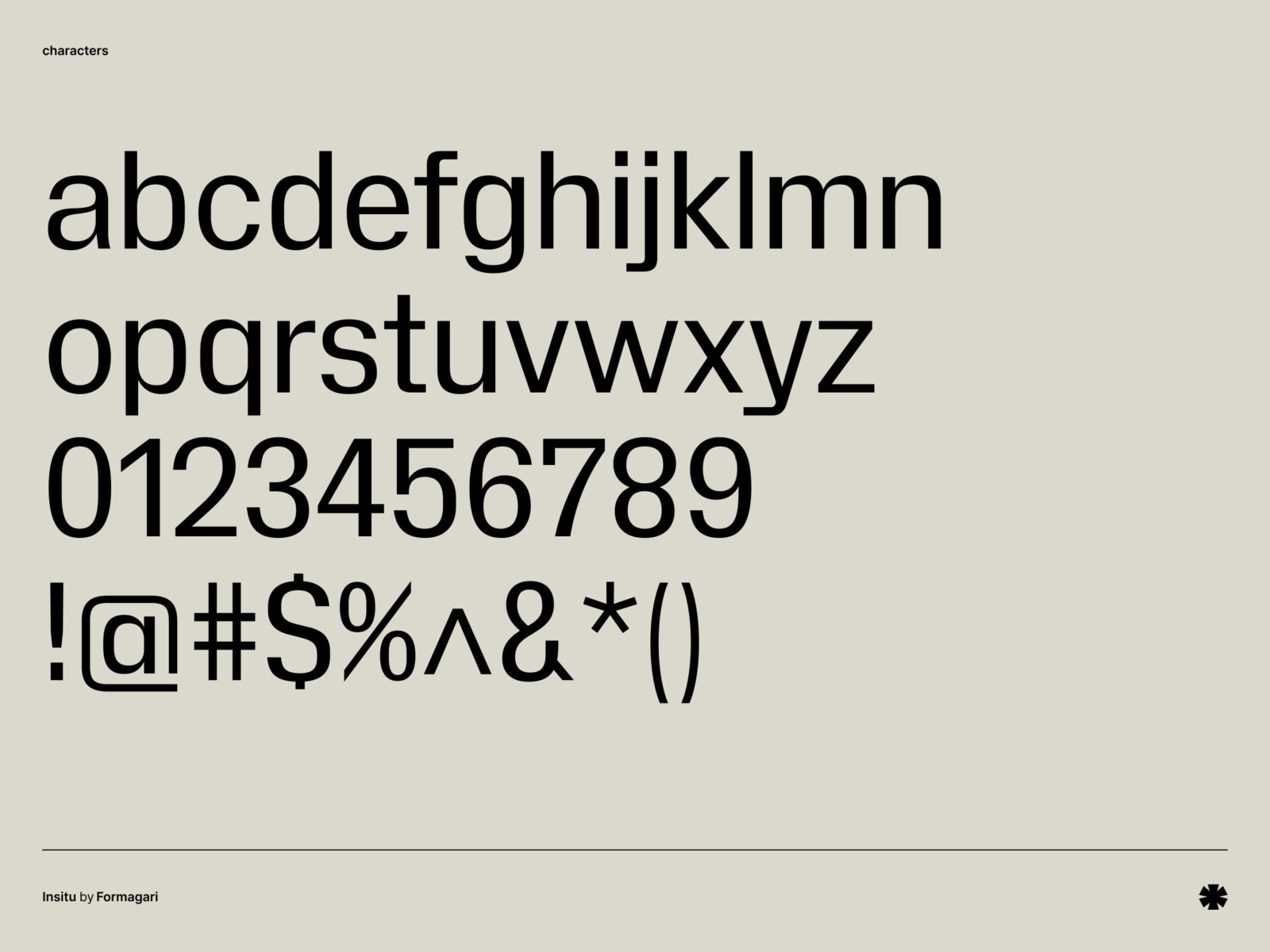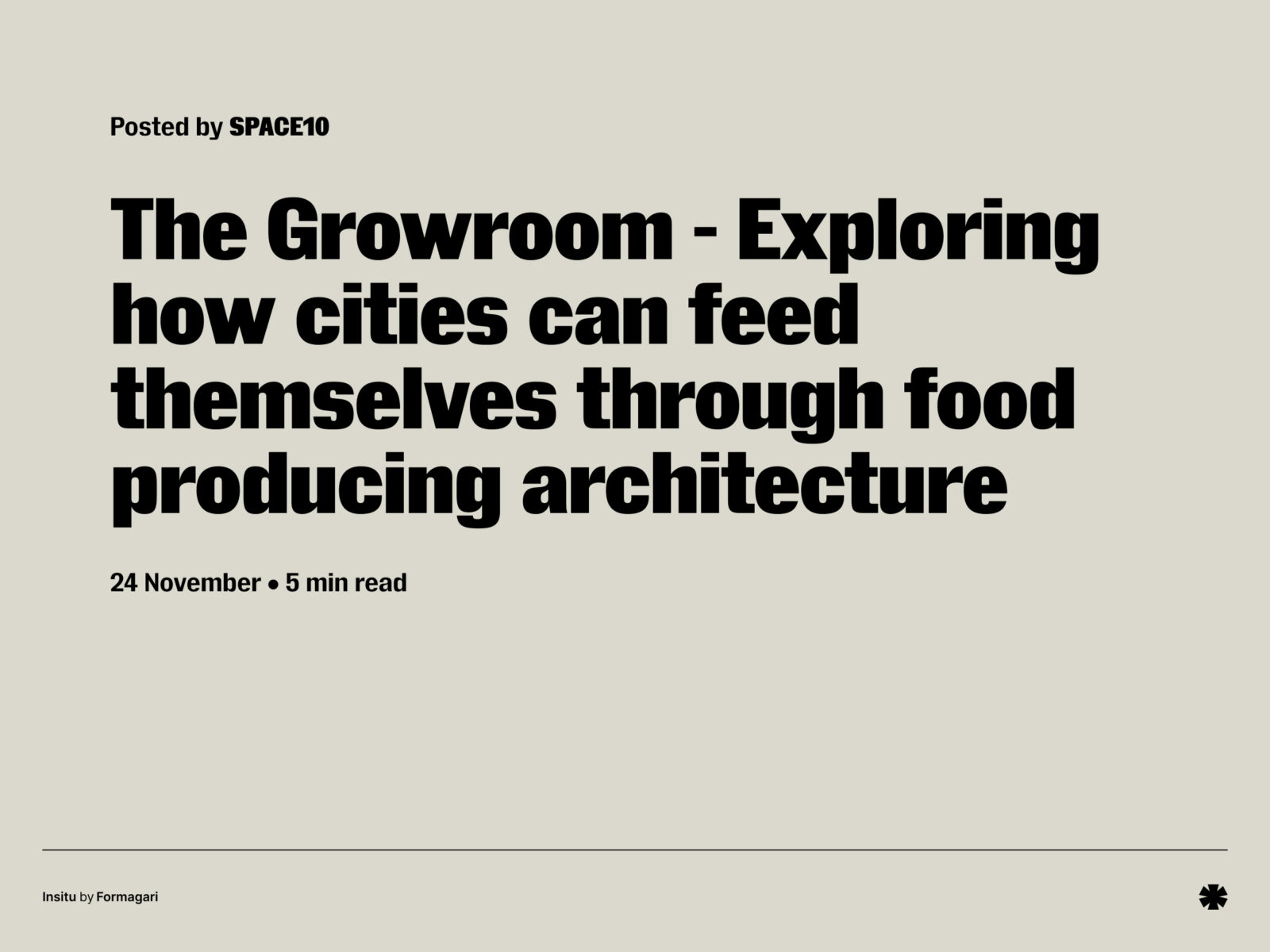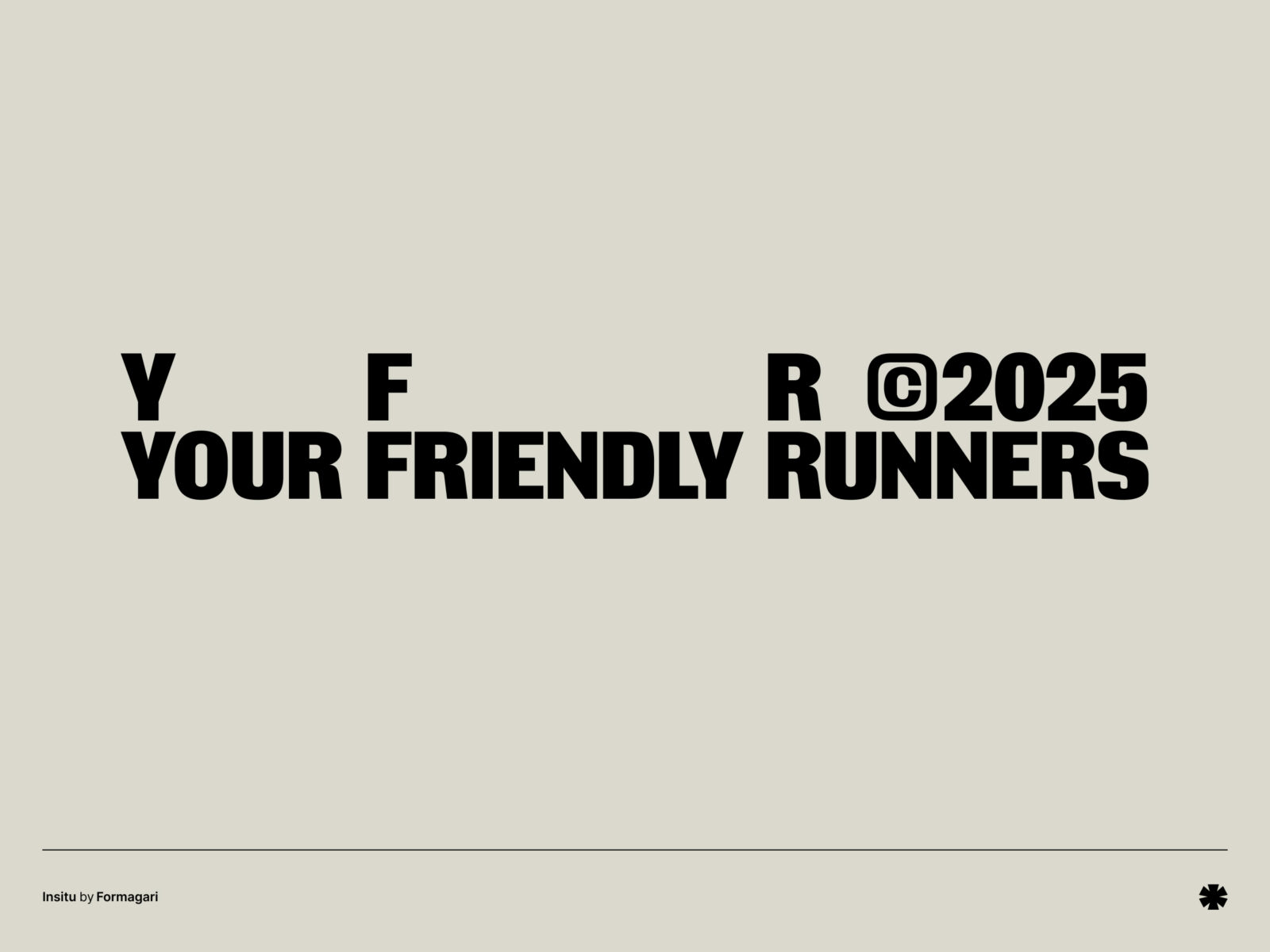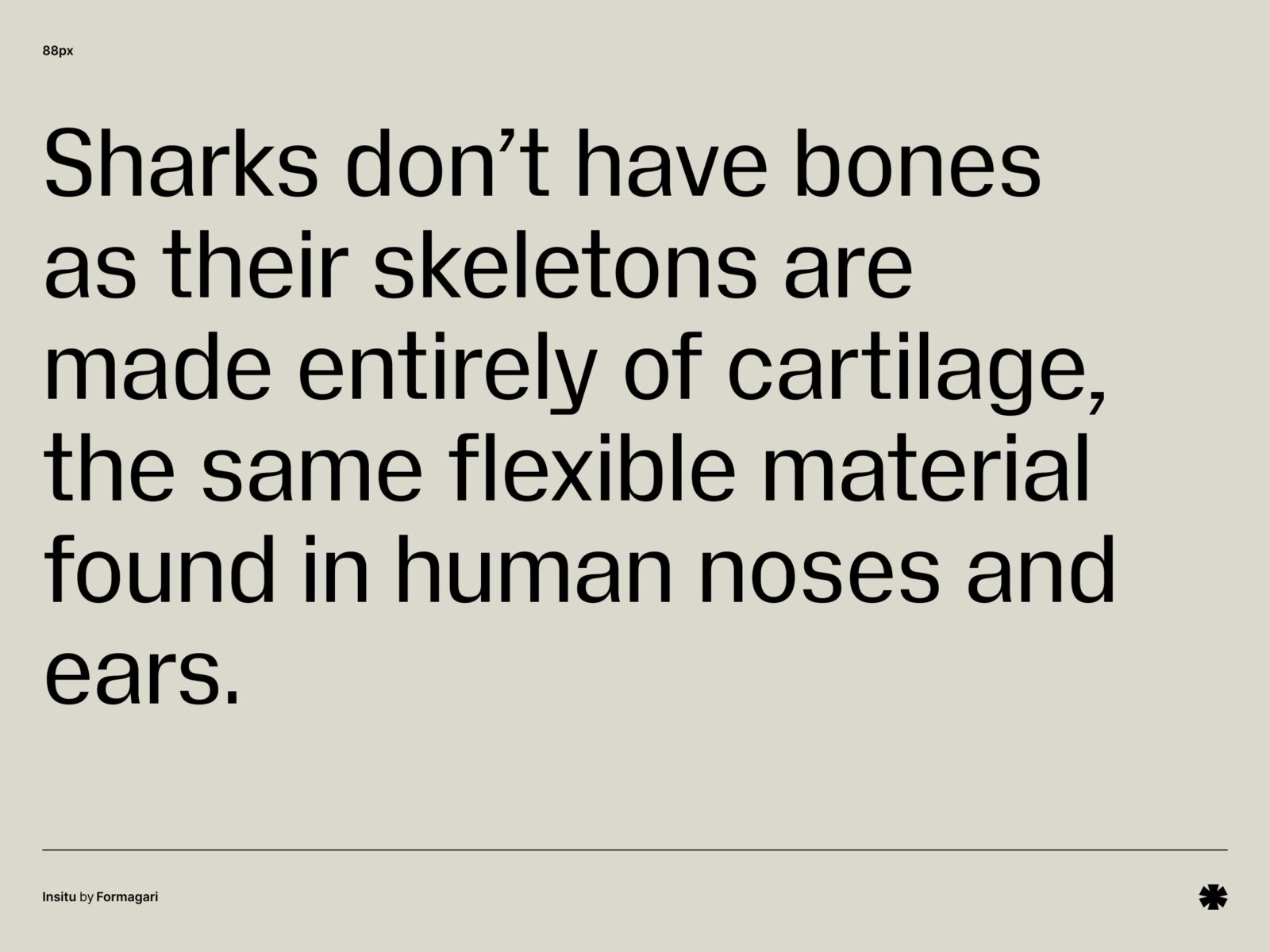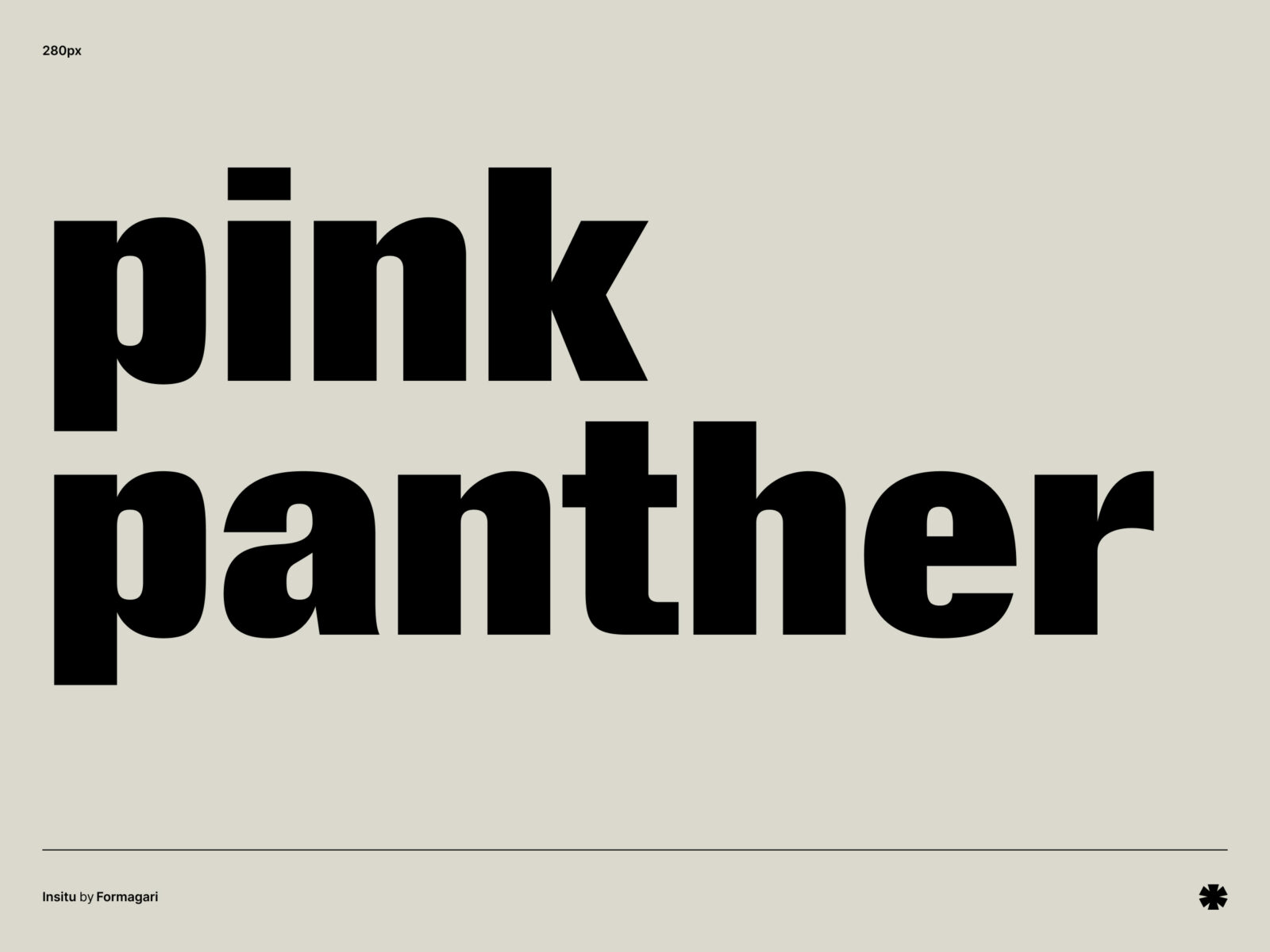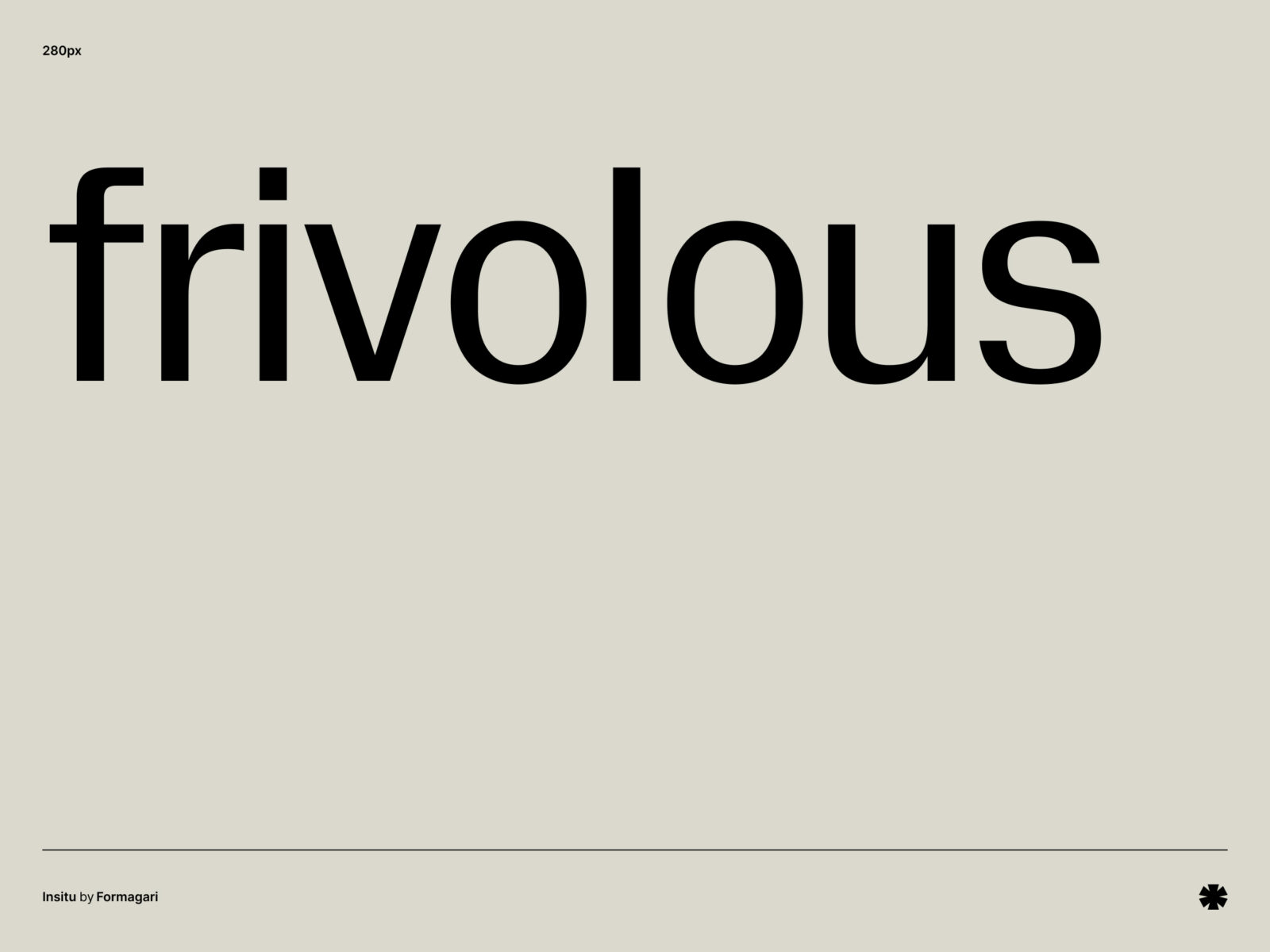
Originally drawn for an art institute and a French art event, Insitu is a tight, contrasty neo-grotesque - sturdy, friendly, and full of 20th-century gothic charm!